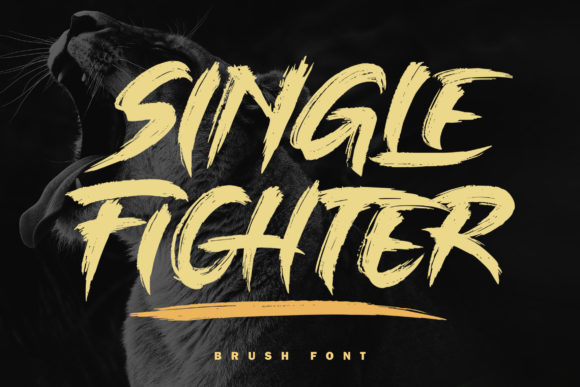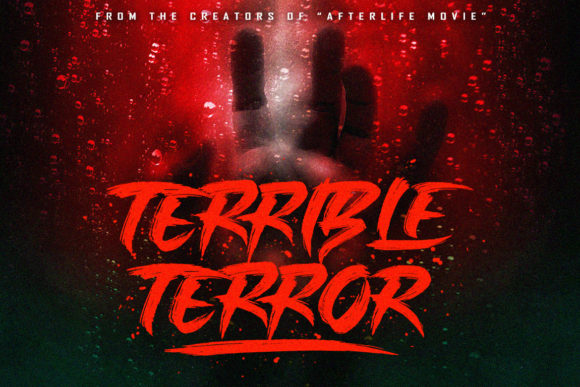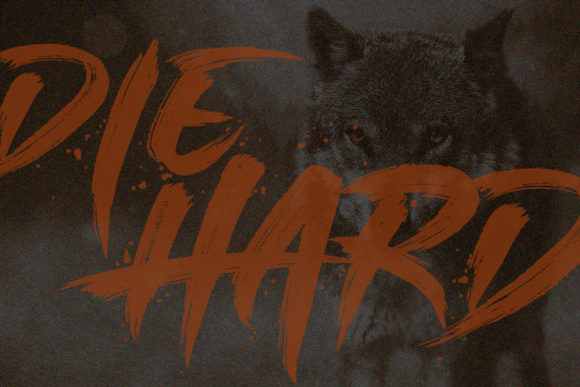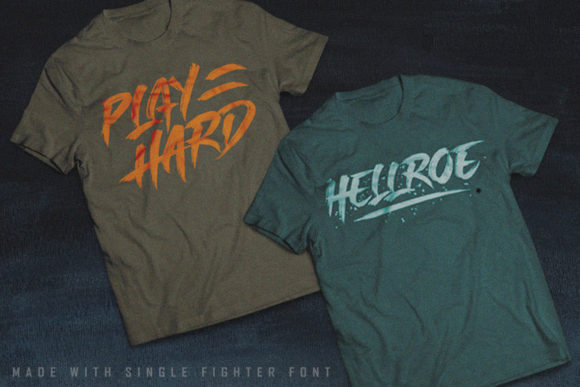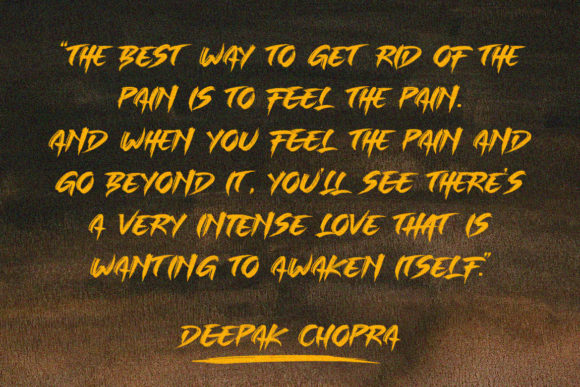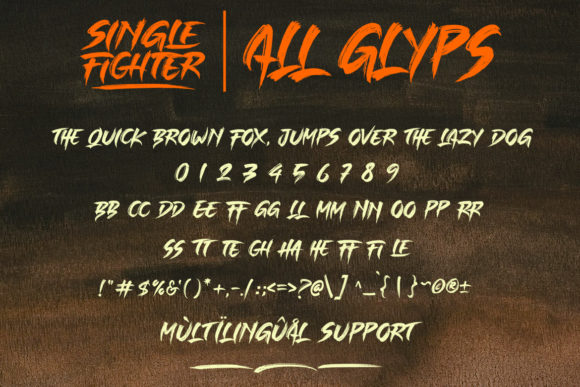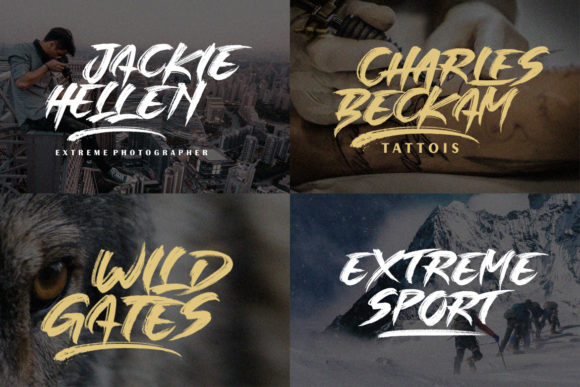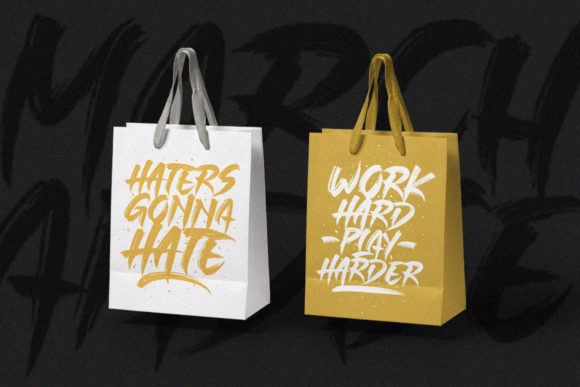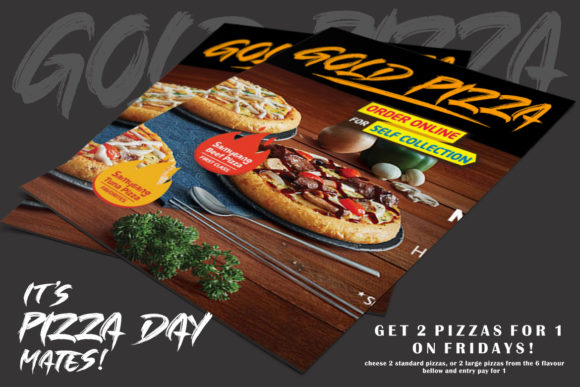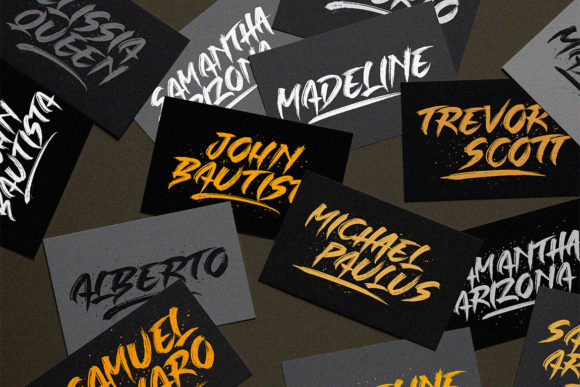
Single Fighter Font
About Single Fighter Font
Single Fighter is a cool and powerful typeface with a powerful feel. It will add a powerful vibe to any design project.